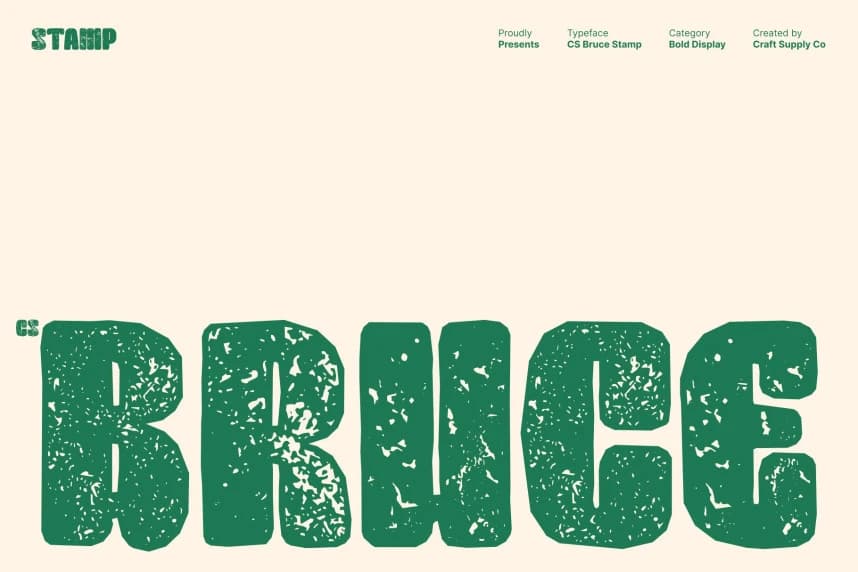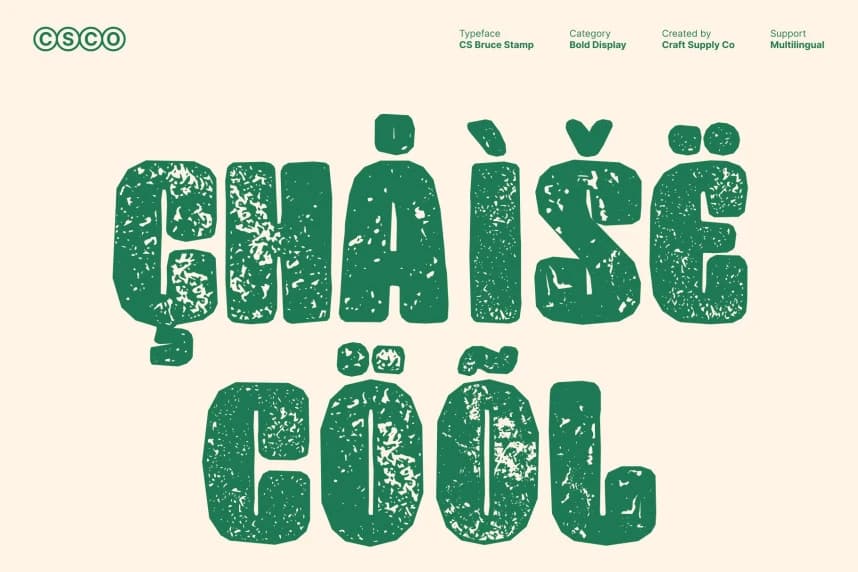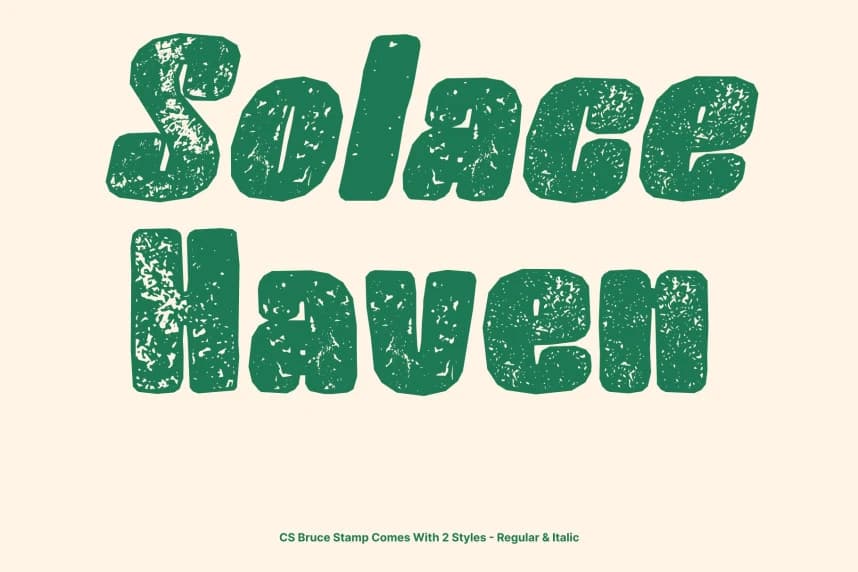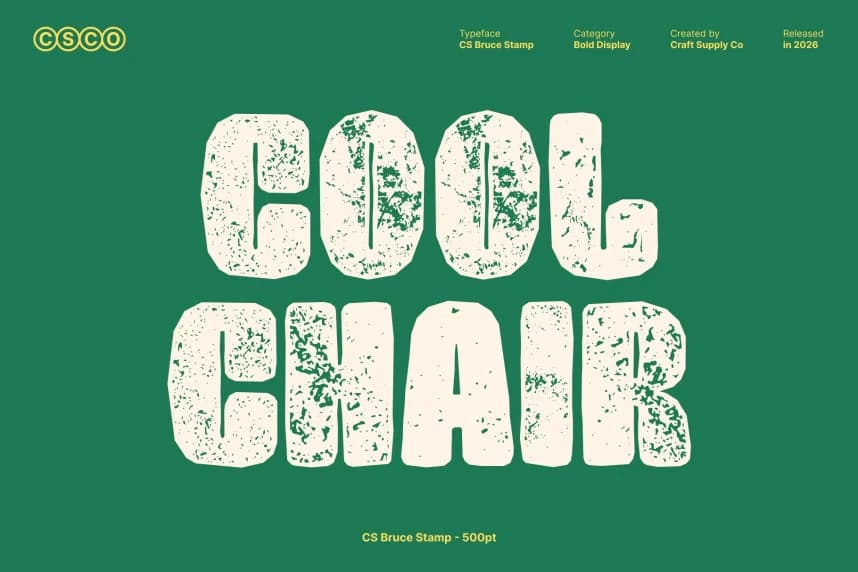
CS Bruce Stamp Font
CS Bruce Stamp Font – Bold Display Font with Textured Strength Powerful Presence with Modern Appeal. This is a bold display sans serif font crafted with a clean and contemporary aesthetic, designed to create a strong visual impact at first glance.